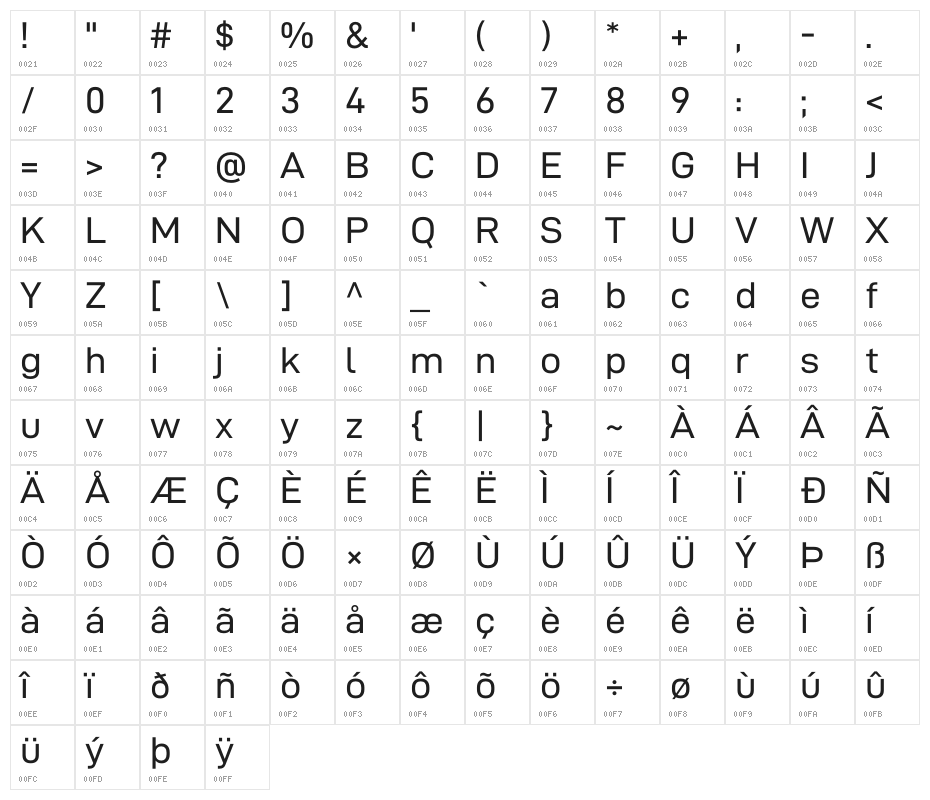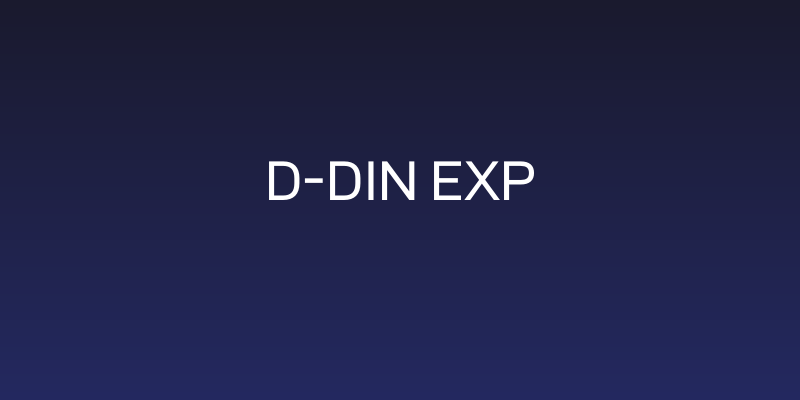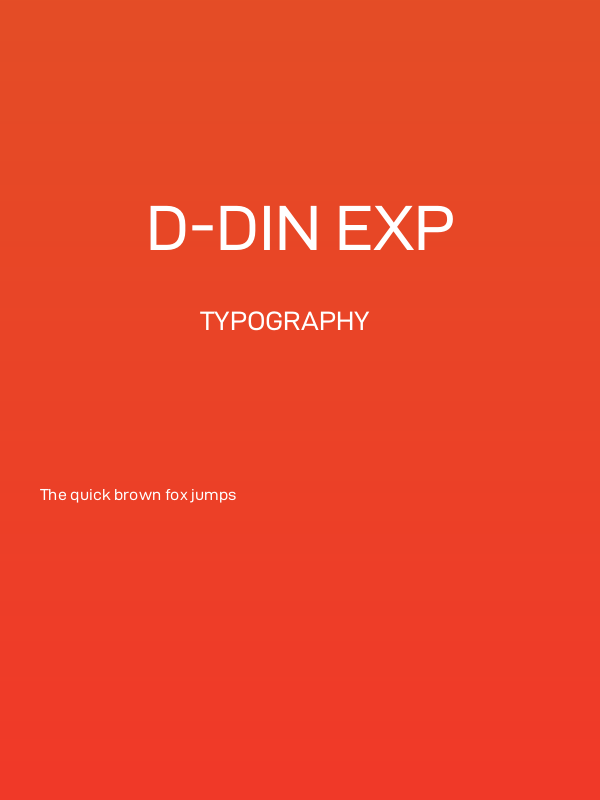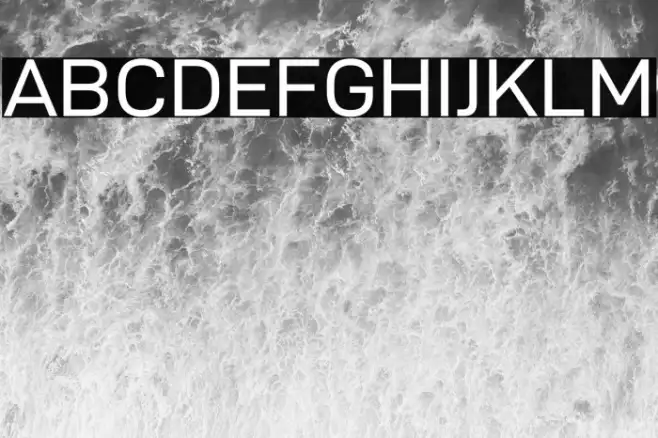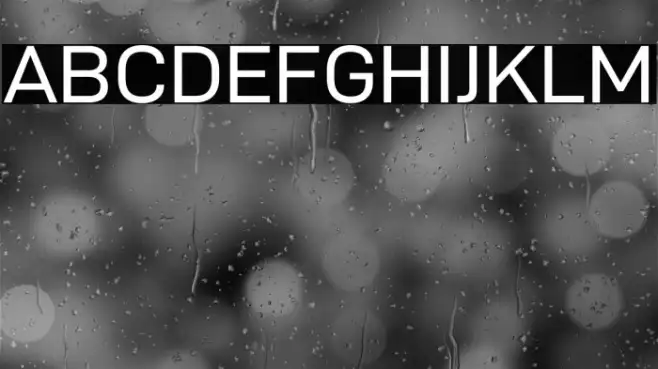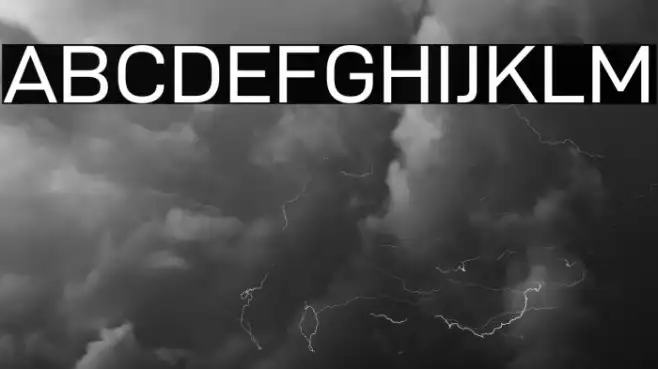
D-DIN Exp Font
D-DIN Exp Description
This font exhibits a clean and modern sans-serif style, characterized by its geometric shapes and uniform stroke widths. The uppercase and lowercase letters maintain a consistent height and width, contributing to a balanced and harmonious appearance. The numerals are clear and easily distinguishable, making them suitable for both digital and print applications. The special characters are well-defined, ensuring readability and versatility across various contexts. The overall design is minimalistic, emphasizing functionality and clarity, which makes it ideal for professional and contemporary design projects.
| Proposed Projects | Ideal for corporate branding, user interfaces, signage, and editorial design. |